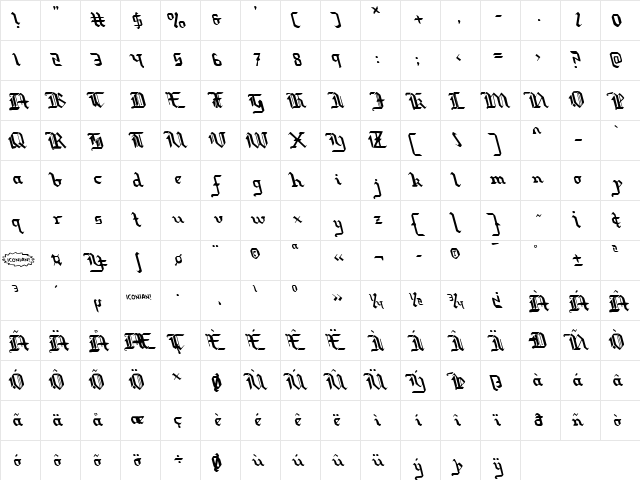
Redcoat Leftalic Italic Font Preview
Redcoat Leftalic Italic
Redcoat Leftalic Italic Font Details
Design Context for Redcoat Leftalic Typeface
Redcoat Leftalic is a composed and adaptable typeface that performs quietly and consistently across a wide range of design contexts. The slanted form adds forward momentum and visual energy.